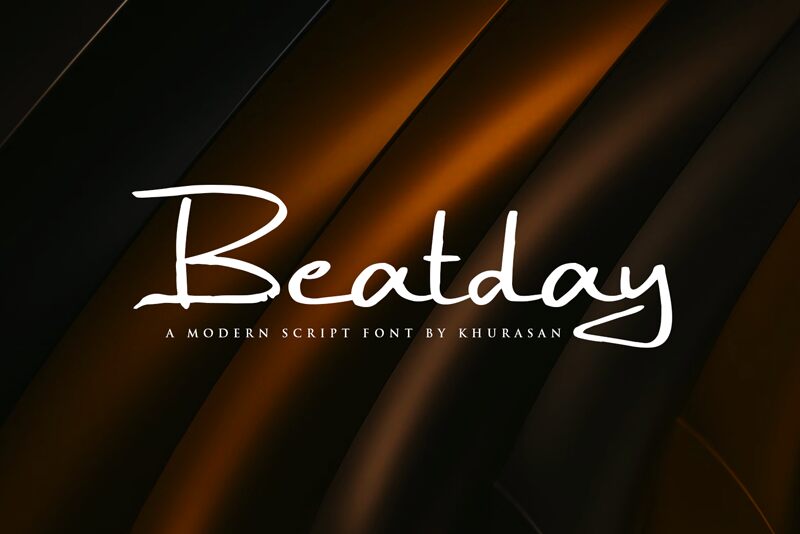
Beatday font by Khurasan™ is a free handwritten font that brings a beautiful and personalized feel to your layouts. The font features sleek lines in an expressive, fluid style, giving your project a modern and vibrant ambiance. Each letter connects smoothly to create an informal yet professional look with elevated visual interest.
Beatday is a contemporary script that works wonderfully for branding and marketing purposes such as logos, posters, labels, and social media graphics. Apply it to stationery designs like cards or print it on merchandise like T-shirts and mugs, or even use it for your web design projects to stand out among monotonous fonts.